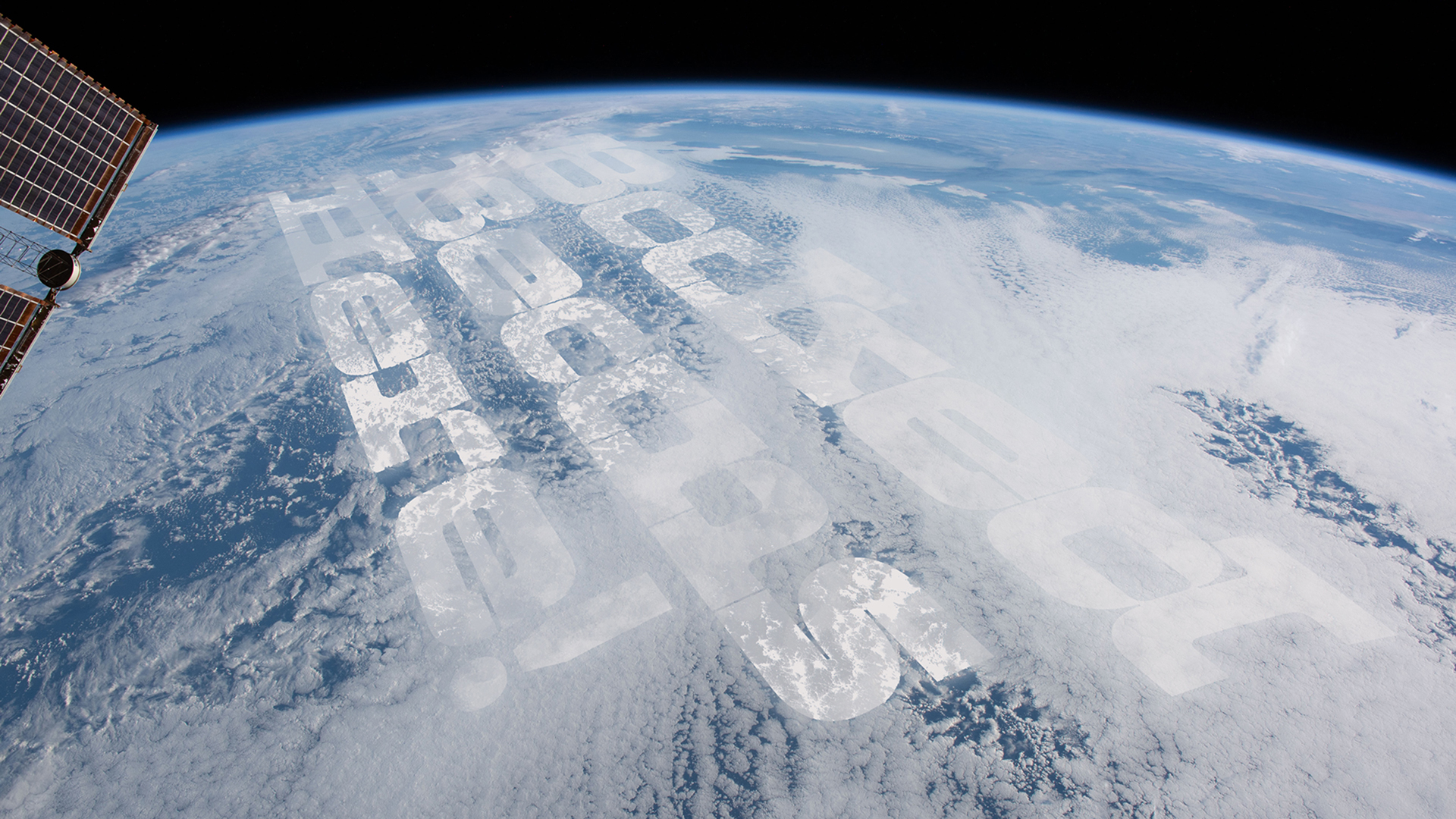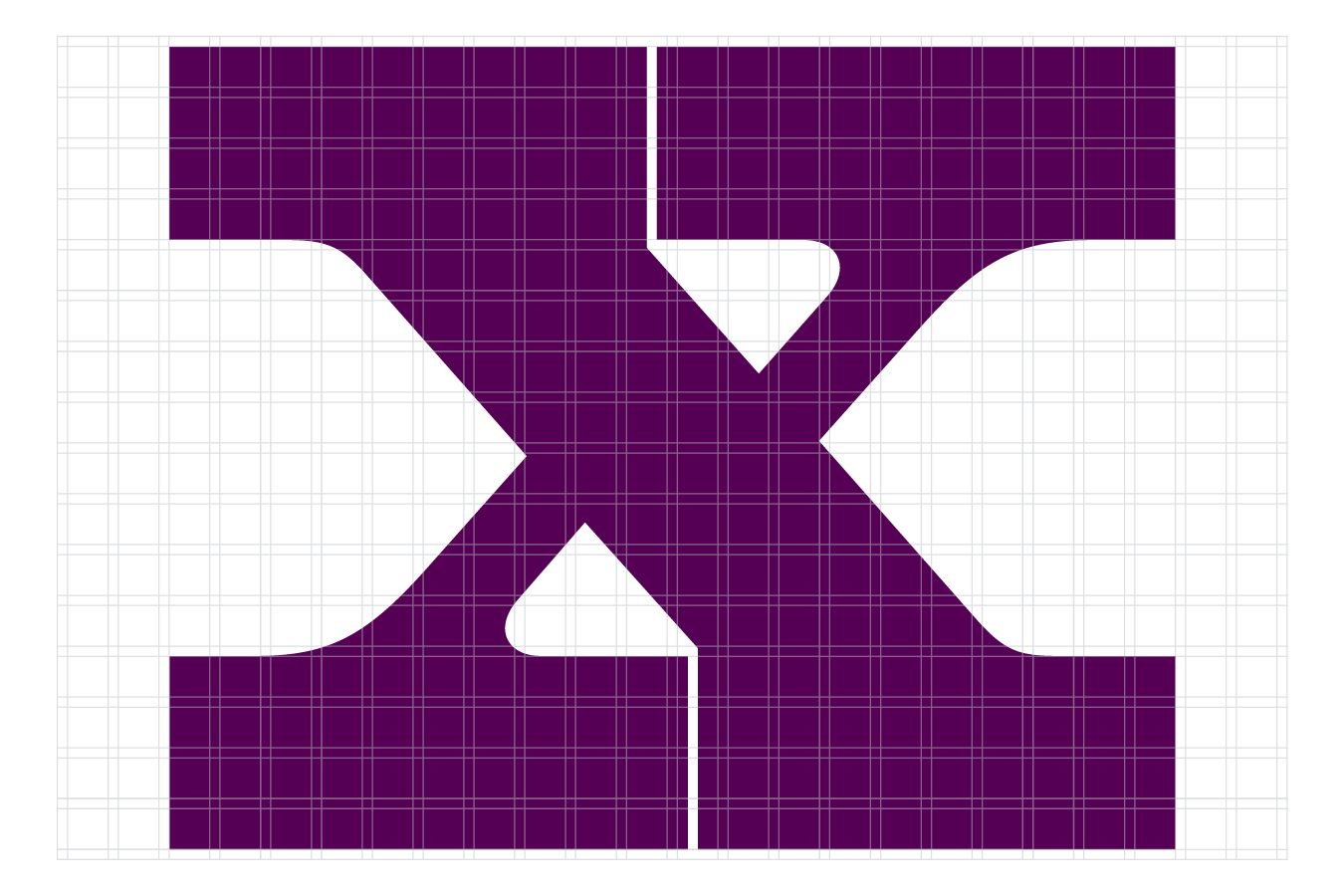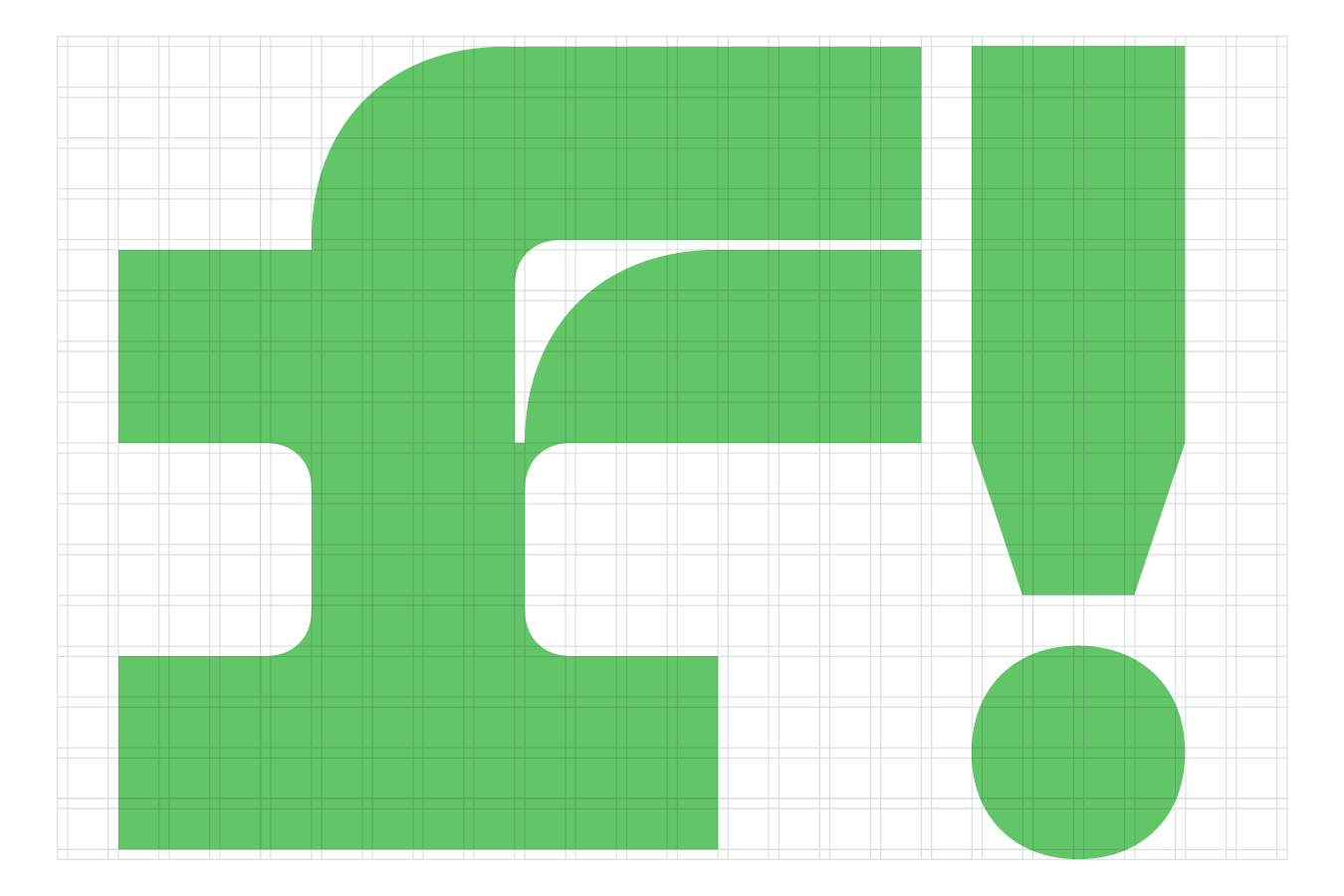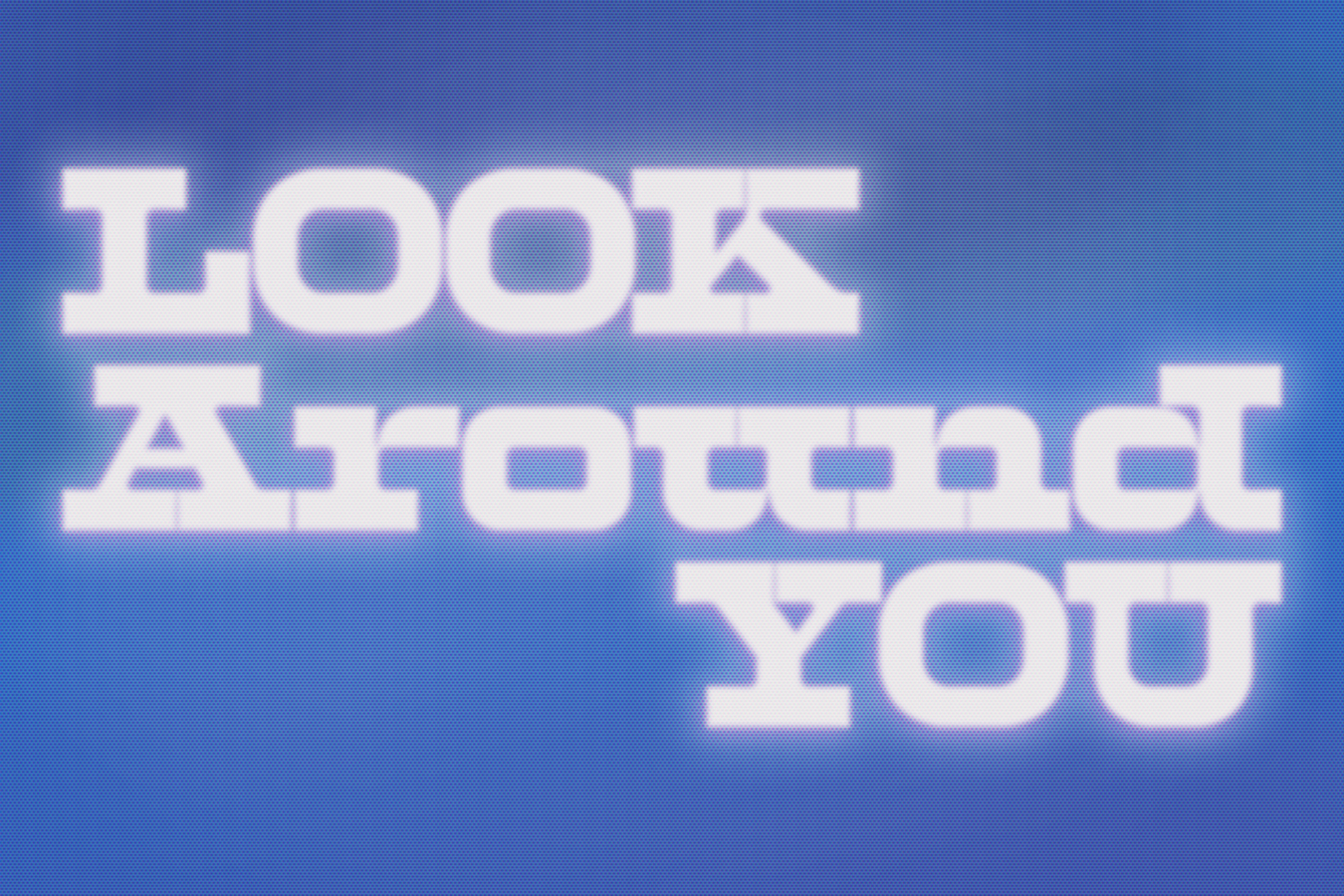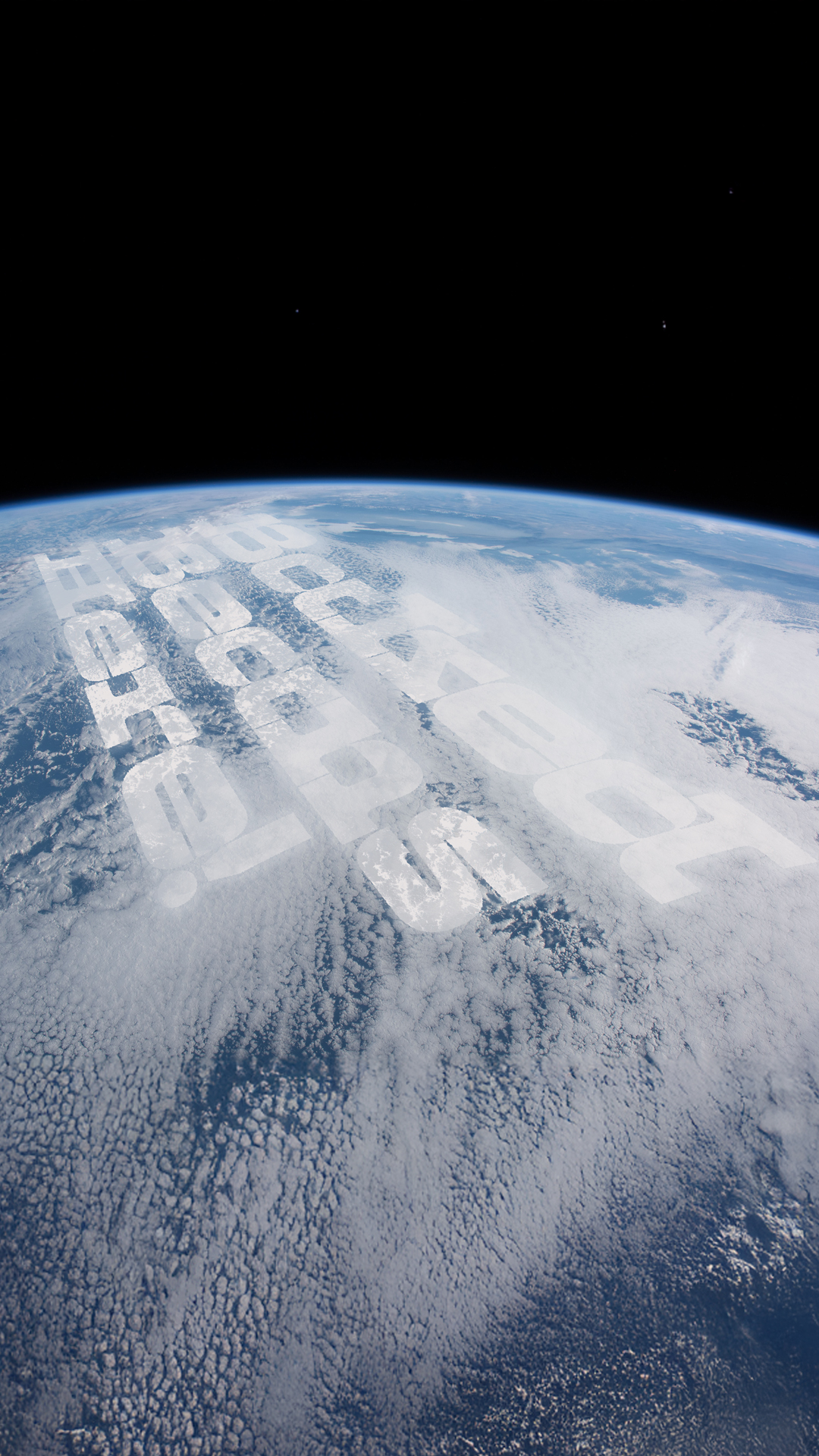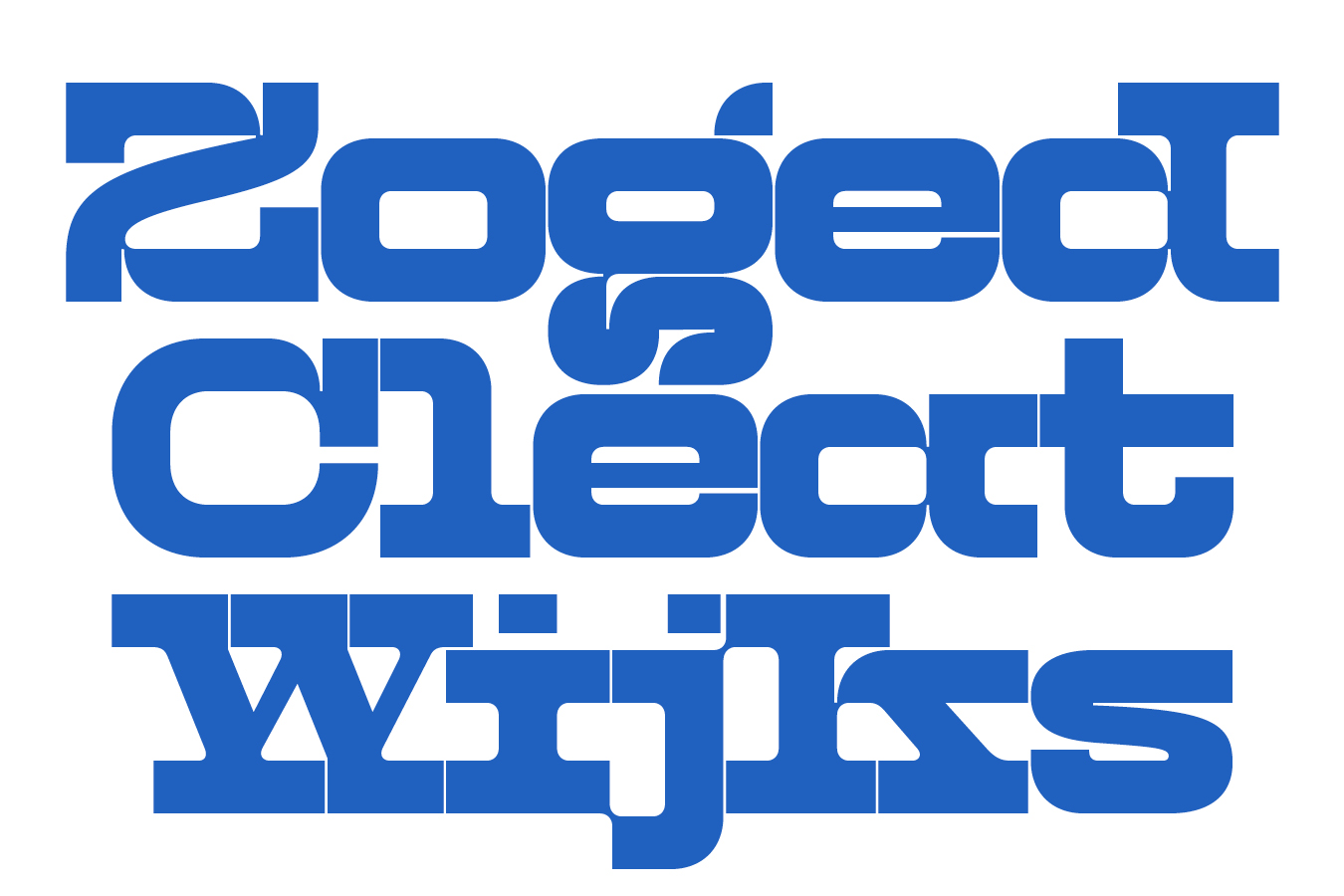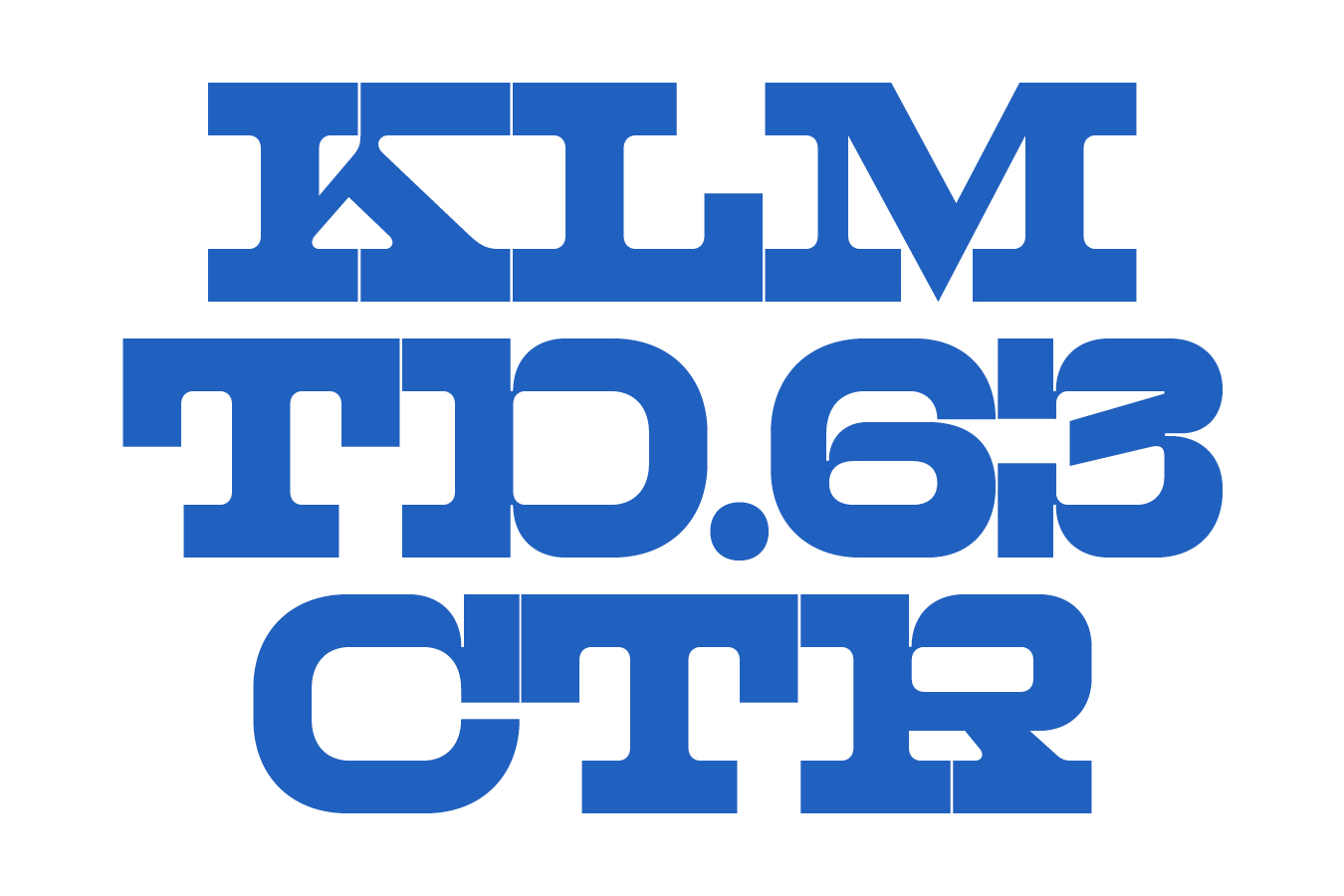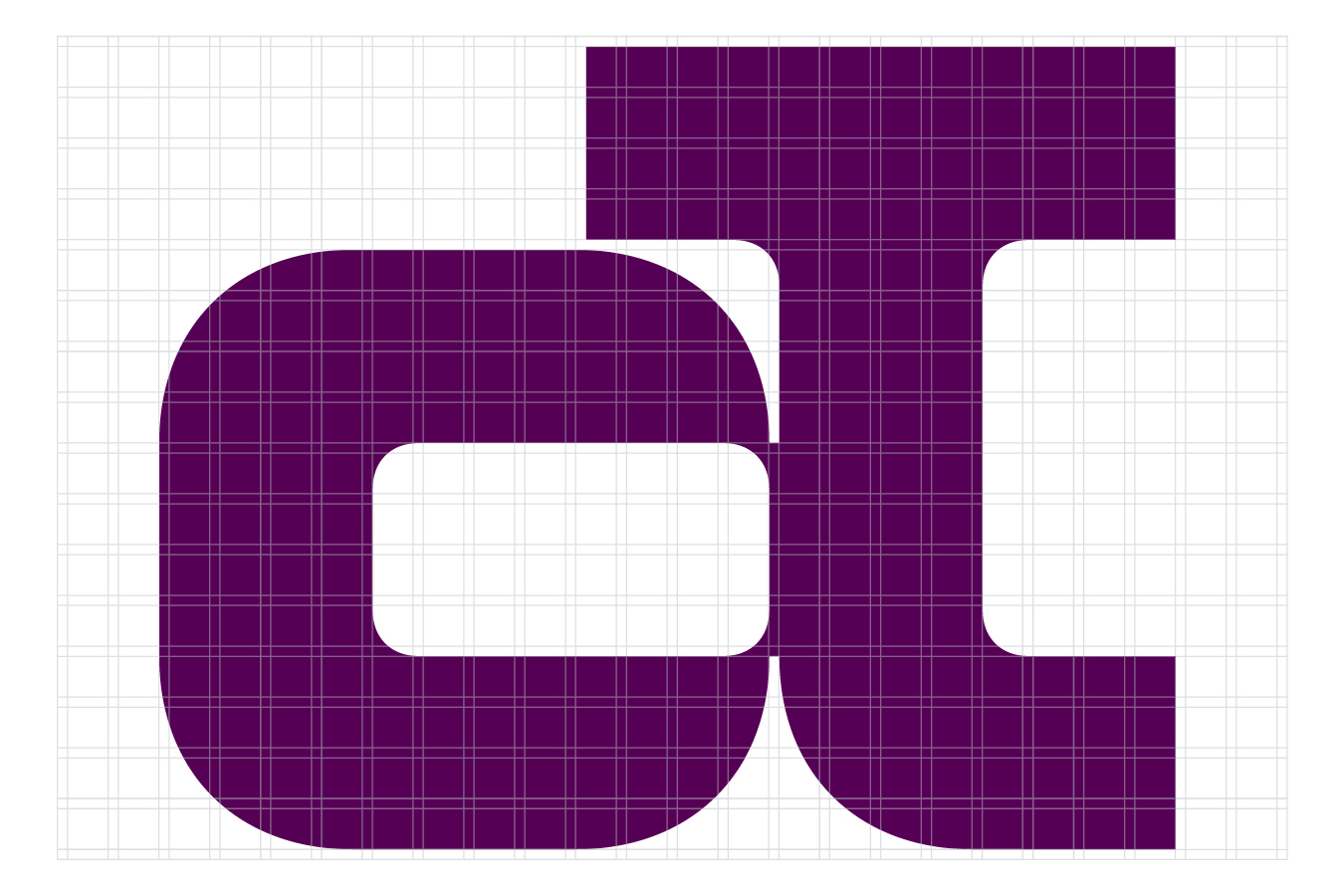
Zaft
In 2019, the Stedelijk Museum in Amsterdam hosted 'Mr. Gridnik', a retrospective celebrating the life and work of Wim Crouwel – a pioneer of Dutch graphic design. The exhibition’s title referenced the nickname he garnered for his analytical, grid-obsessed approach. For Crouwel, the grid wasn't just another design tool; it was a modernist proclamation, a system to revolutionise communication, as fundamental a tool as a chisel is to a carpenter.
I made the pilgrimage up to Amsterdam and was awestruck to see his work in the flesh. Of particular interest to me was his series of typographic posters he designed for the Stedelijk Van Abbemuseum. Of these, I was drawn to the exhibition poster for 'Beelden in het heden' (1959), which displayed a punchy slab-serif lettering – a rarity in Crouwel's work and perhaps why it piqued my curiosity. Inspired by the poster and exhibition, I quickly got to work, sketching some ideas upon my own grid. The project rapidly snowballed, all still adhering to the grid, but with a slightly more playful character evolving out of this rigid system. And with that, the foundations of Zaft were laid.
Zaft is a weighty display font, full of eccentricity and impact. While rigid in design, there is a playful rhythm and harmony to the negative space, allowing for delicate pockets of air to exist between the heftily compact forms. This is further accentuated by Zaft's hairline letter-spacing. A unique feature worth noting is Zaft's use of contextual ligatures, which form rounded connections between particular glyph pairings. These gentle bridges add a touch of elegance to this otherwise heavy-duty design.
Set your super-families aside and make way for Zaft – unapologetically single-styled. A true modernist at heart. Long live the grid!